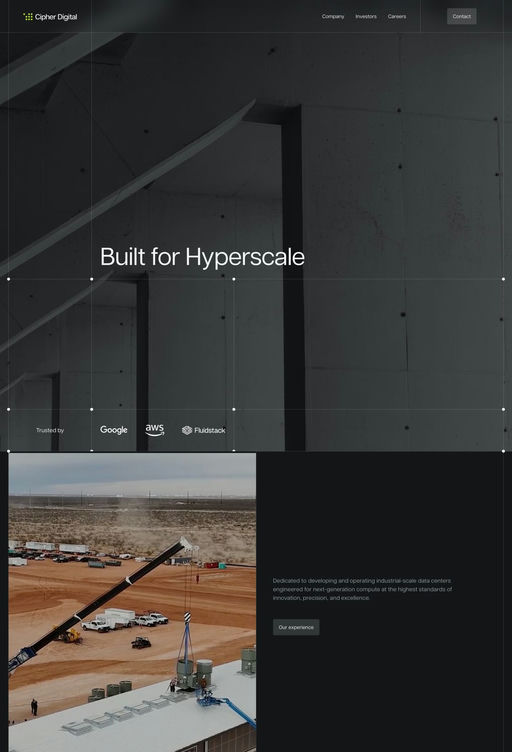
Articulat CF is a new take on the timeless Swiss typography style. Strong, sharp and well-spoken, Articulat was built to be versatile, charismatic and legible.